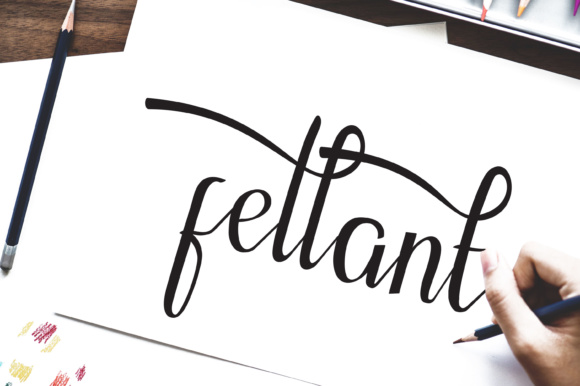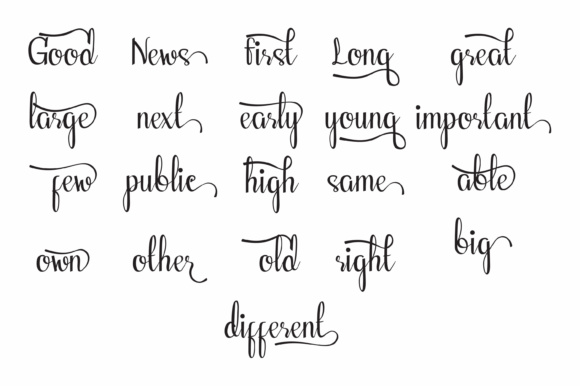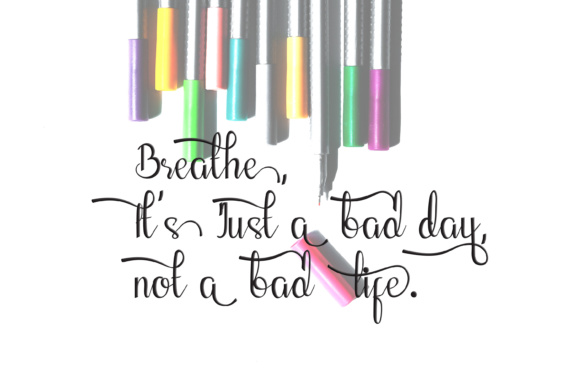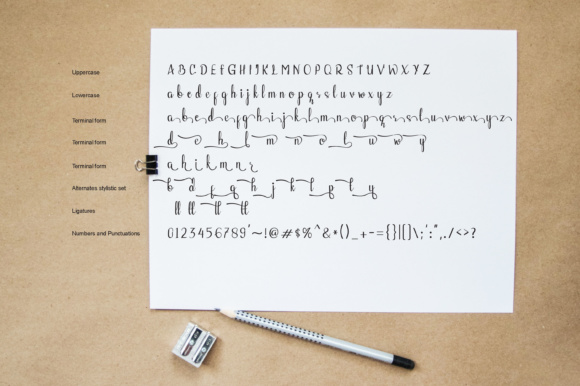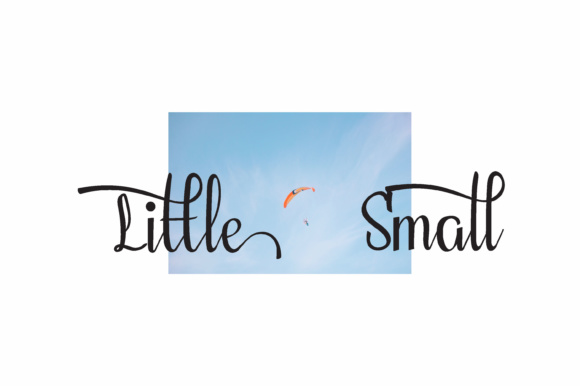
Fellant Font
About Fellant Font
Fellant is a script font which is equipped with various stylistic set alternatives that can be selected through open type features. It’s intended for those who want a relaxed and beautiful style with an existing swash.